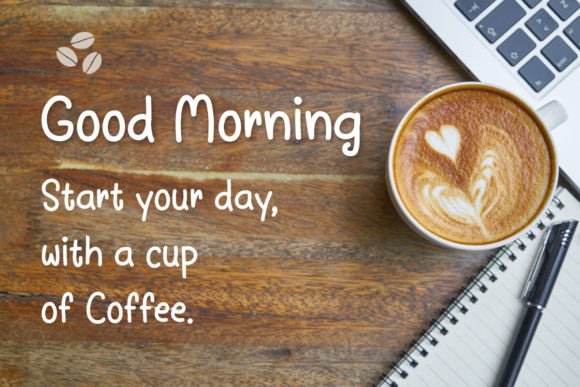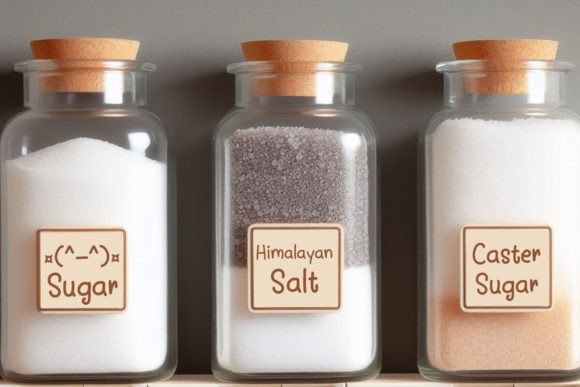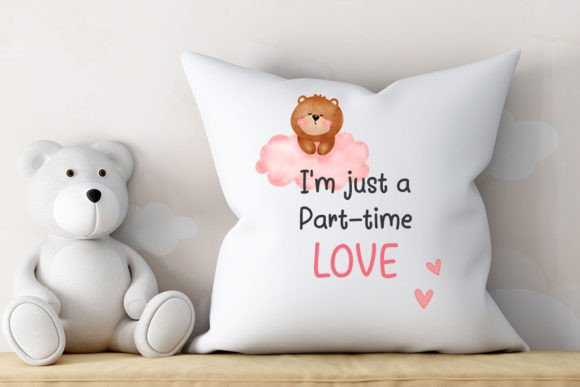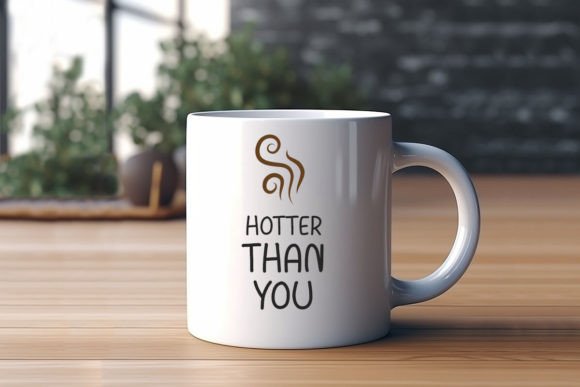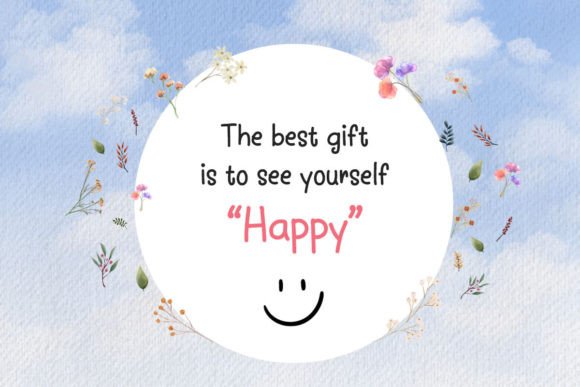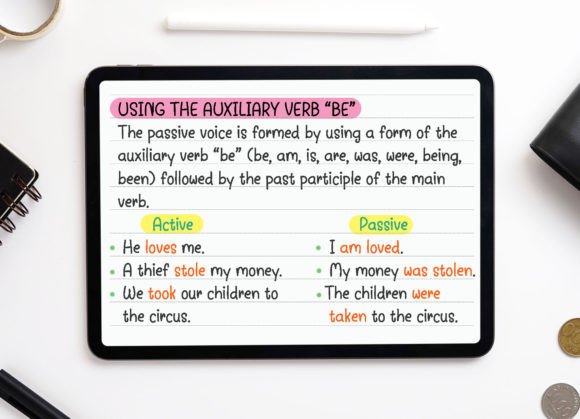
Introducing Good Doggie LF: The Ultimate Sans Serif Font for Creative Projects
Are you a designer or crafter looking for a font that can add a touch of cuteness and charm to your projects? Look no further than Good Doggie LF, a delightful sans serif font that’s perfect for a wide range of applications. In this article, we’ll explore the features and benefits of Good Doggie LF, and show you how it can elevate your designs to the next level.
What is Good Doggie LF?
Good Doggie LF is a cute, minimal, and charming sans serif font that’s designed to bring a smile to your face. Its clean and simple lines make it highly versatile, allowing you to use it for a wide spectrum of projects, from headlines and branding to packaging and party decorations.
Key Features of Good Doggie LF
- Cute and charming design: Good Doggie LF has a unique and playful design that’s sure to capture the attention of your audience.
- Minimal and simple lines: The font’s clean lines make it easy to read and versatile for various applications.
- Sans serif: The font’s sans serif design gives it a modern and fresh look that’s perfect for contemporary designs.
- Highly versatile: Good Doggie LF can be used for a wide range of projects, from headlines and branding to packaging and party decorations.
Use Cases for Good Doggie LF
Good Doggie LF is perfect for a wide range of projects, including:
- Headlines and branding: Use Good Doggie LF to create eye-catching headlines and branding materials that will make your business stand out.
- Packaging: Add a touch of cuteness and charm to your packaging with Good Doggie LF.
- Back-to-school designs: Create fun and playful back-to-school designs with Good Doggie LF.
- Children-themed designs: Good Doggie LF is perfect for children’s-themed designs, such as party decorations, thank you cards, and more.
- Party decoration: Use Good Doggie LF to create fun and playful party decorations, such as banners, signs, and more.
- Thank you cards: Add a personal touch to your thank you cards with Good Doggie LF.
- Quotes and posters: Use Good Doggie LF to create inspiring quotes and posters that will motivate and inspire your audience.
- Logos and branding: Good Doggie LF is perfect for creating unique and memorable logos and branding materials.
- Blogs and websites: Use Good Doggie LF to add a touch of personality to your blog or website.
- Bags and T-Shirts: Create fun and playful designs for bags and T-Shirts with Good Doggie LF.
- Clothing and accessories: Good Doggie LF is perfect for creating unique and stylish designs for clothing and accessories.
Why Choose Good Doggie LF?
There are many reasons why Good Doggie LF is the perfect font for your next project. Here are just a few:
- Unique and playful design: Good Doggie LF has a unique and playful design that’s sure to capture the attention of your audience.
- Highly versatile: Good Doggie LF can be used for a wide range of projects, making it a great addition to your font library.
- Easy to read: The font’s clean lines make it easy to read, even at small sizes.
- Modern and fresh look: The font’s sans serif design gives it a modern and fresh look that’s perfect for contemporary designs.
Good Doggie LF is a cute, minimal, and charming sans serif font that’s perfect for a wide range of applications. Its unique and playful design, highly versatile, and easy to read make it a great addition to your font library. Whether you’re a designer or crafter, Good Doggie LF is sure to become one of your go-to fonts for creating fun and playful designs. So why wait? Download Good Doggie LF today and start creating!